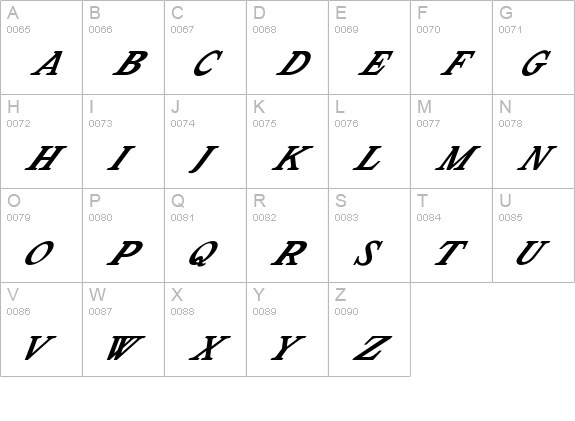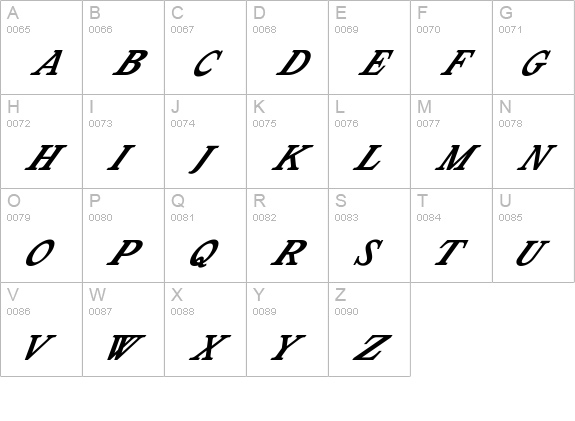
Shenandoah Personal Use Only Font Details
Shenandoah Personal Use Only font is a stunning typeface that seamlessly combines elegance with a touch of sophistication. Its graceful curves and delicate strokes make it a perfect choice for any design project that requires a refined and polished look. This font exudes a sense of timeless beauty, making it ideal for branding, logo design, invitations, and much more. Its versatility allows it to effortlessly adapt to various design styles, from modern and minimalist to classic and vintage. The best part? Shenandoah Personal Use Only font is absolutely free! Yes, you read that right. This extraordinary font is freely available to download at FontsMarket.com. Now, you can enhance your designs without breaking the bank. Whether you are a professional designer or a creative enthusiast, Shenandoah Personal Use Only font is sure to captivate your audience and elevate your projects to new heights. Its legibility and readability ensure that your message will be conveyed with utmost clarity. So, what are you waiting for? Unlock your creativity and download Shenandoah Personal Use Only font now, exclusively at FontsMarket.com. Explore the endless possibilities and let this font bring your ideas to life.